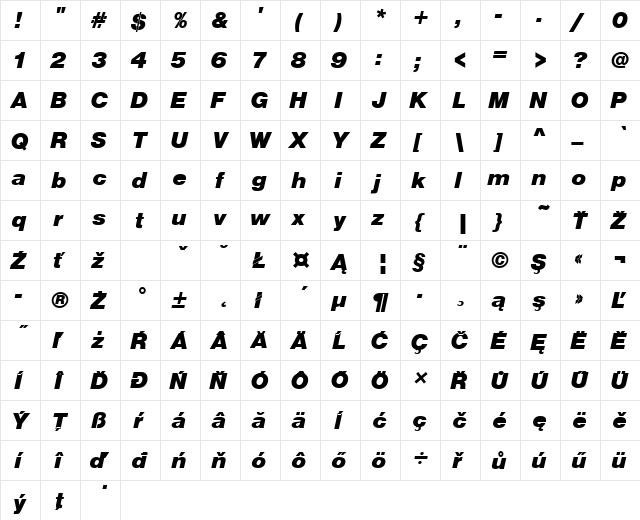
NimbusSanPEEBla Italic Font Preview
NimbusSanPEEBla Italic
Design Context for NimbusSanPEEBla Typeface
NimbusSanPEEBla offers clean, dependable letterforms without strong stylistic allegiance, making it a practical choice for designers who need flexibility. The dynamic lean of this cut emphasises speed and emphasis in any layout.